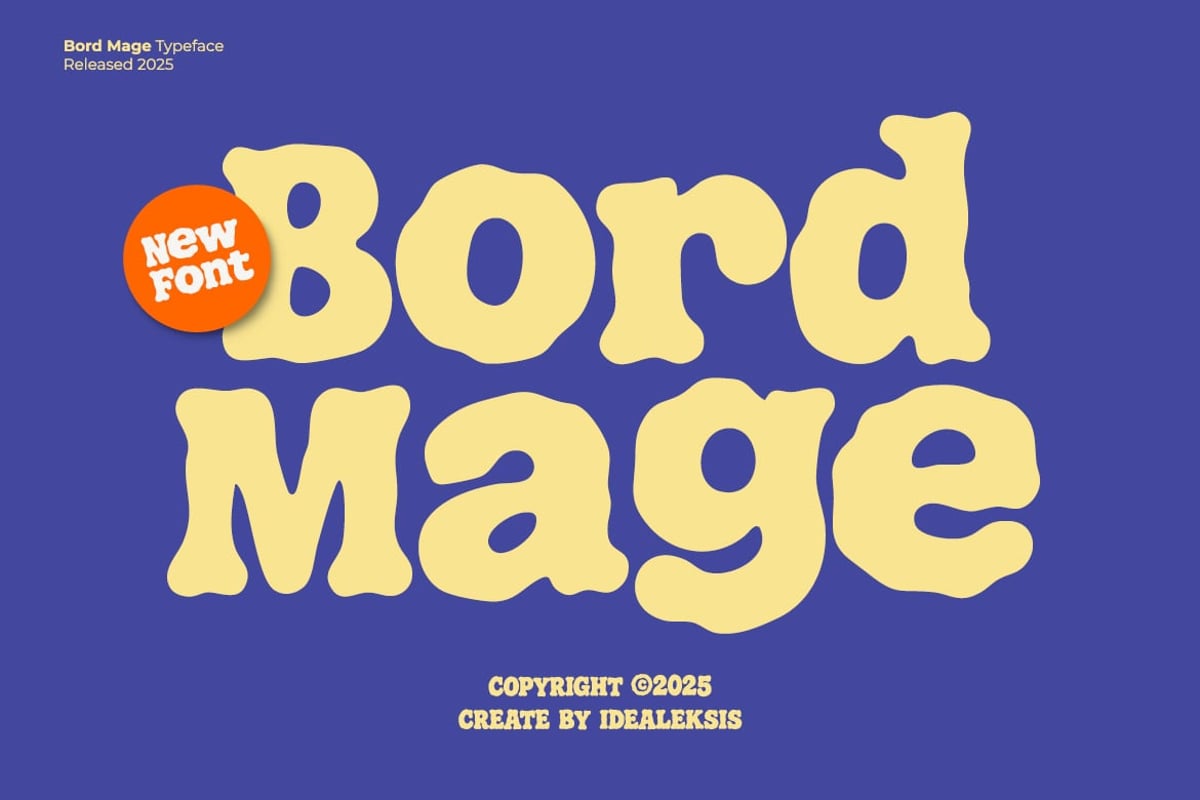
Bord Mage - Display Font
Bring groovy vintage vibes to your designs with Bord Mage's bold, bubbly curves and playful retro charm.
This distinctive display font captures the essence of nostalgic design with its fun, rounded letterforms and eye-catching vintage aesthetic. Ideal for creative projects that need personality and visual impact.
Perfect applications include:
- Eye-catching posters and promotional materials
- Product packaging that stands out on shelves
- Memorable logos and brand identity
- Engaging social media graphics
- Any creative project seeking a fun, nostalgic feeling